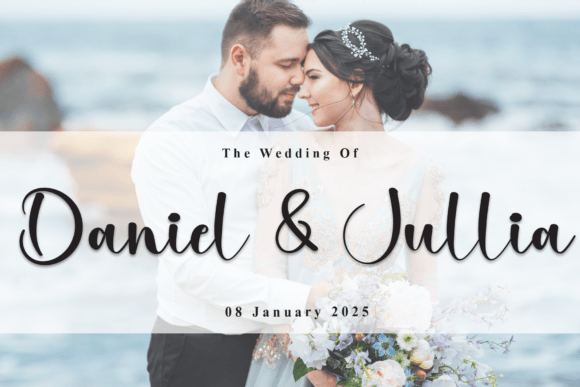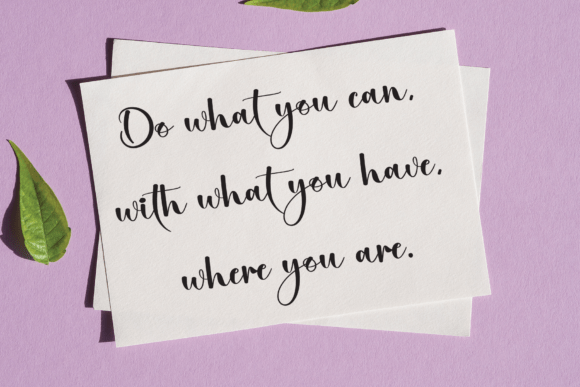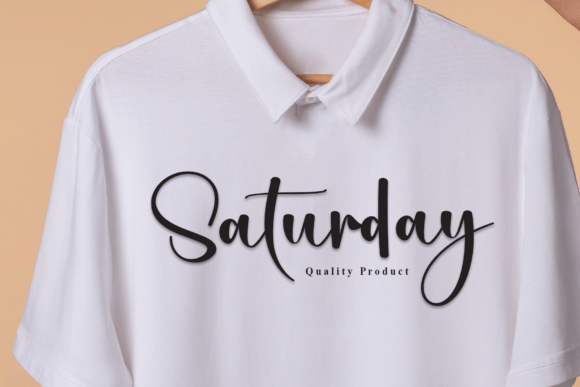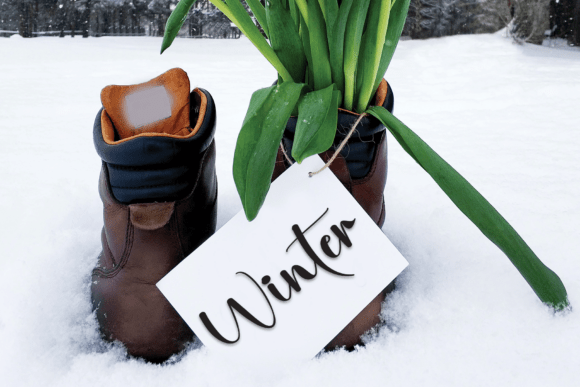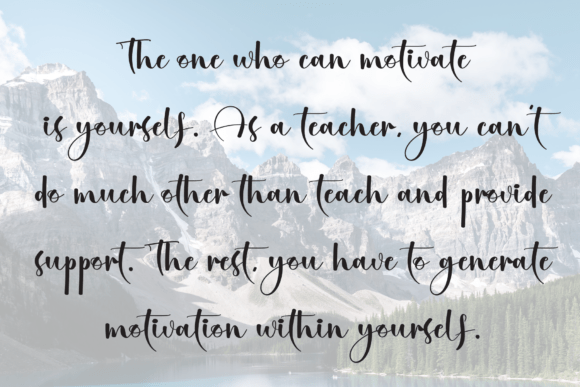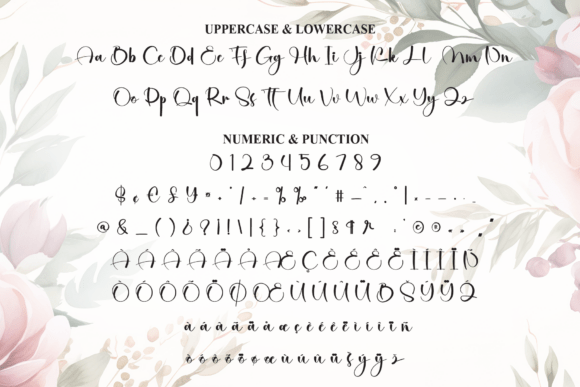
The Magic of Angelina Font: A Designer’s Delight
I’ll never forget the time I was working on a wedding invitation project, and my client asked for a font that exuded warmth, love, and a touch of elegance. I scoured the internet, tried countless fonts, but nothing seemed quite right. That was until I stumbled upon Angelina Font. Its flowing strokes and elegant curves instantly captured the essence of the project, and I knew I had found the perfect match. In this article, I’ll share my love for Angelina Font, its features, and how to make the most of it in your designs.
A Personal Review: What I Love About Angelina Font
Here’s what makes Angelina Font a standout in my book:
• Effortless elegance: Angelina Font boasts a beautiful, handwritten script that radiates warmth and affection.
• Versatility: Its flowing strokes and elegant curves make it perfect for a wide range of projects, from romantic getaways to wedding invitations, branding, and heartfelt messages.
• 💕 Emotional connection: This font has a way of conveying emotions with style and charm, making it ideal for projects that require a personal touch.
While Angelina Font is a stunning addition to any design project, there are a few things to keep in mind:
• ⚠️ Legibility at small sizes: Like many script fonts, Angelina can be a bit tricky to read at very small sizes. Make sure to test it in your design to ensure it’s legible.
• 🤔 Overuse of swashes: While the swashes and flourishes in Angelina Font are beautiful, overusing them can make your design look cluttered. Balance is key.
The Story Behind Angelina Font
While the origins of Angelina Font are shrouded in mystery, it’s said to have been inspired by the elegant handwriting of a 19th-century French artist. The font’s creator aimed to capture the essence of love letters and personal correspondence, infusing it with a sense of warmth and intimacy.
What makes Angelina Font so special? Angelina Font’s unique blend of elegance, warmth, and versatility makes it perfect for a wide range of design projects.
Is Angelina Font difficult to read? Like many script fonts, Angelina can be a bit challenging to read at small sizes. However, it’s perfectly legible at larger sizes.